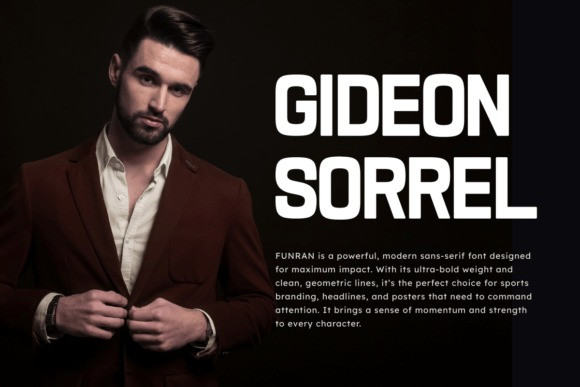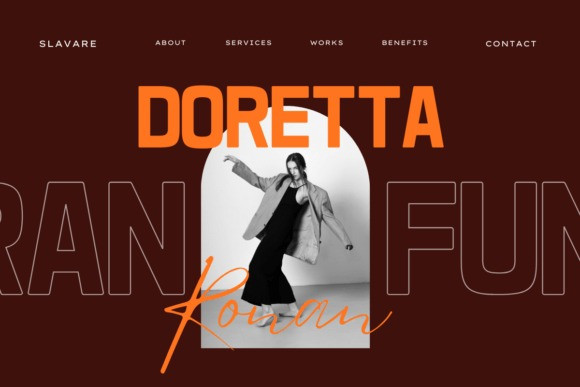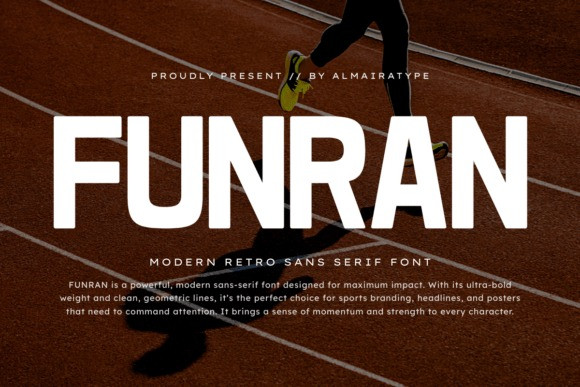
Funran Font
Funran Font is a powerful, modern retro sans serif font designed for maximum impact and high-energy visual storytelling. With its ultra-bold weight and clean, geometric lines, this typeface is the perfect choice for sports branding, competitive racing graphics, and bold event posters that need to command attention. It brings a unique sense of momentum and strength to every character, blending classic athletic aesthetics with a contemporary, sleek finish. Whether you are creating dynamic social media content, professional team logos, or standout apparel designs, Funran provides a solid and reliable typographic foundation. Its versatile nature makes it equally suitable for cinematic titles, fitness motivation quotes, and innovative packaging projects. The balanced proportions ensure excellent legibility across both digital and print platforms, allowing your creative vision to shine with professional clarity. Elevate your design projects with the unstoppable energy and commanding presence of the Funran typeface.